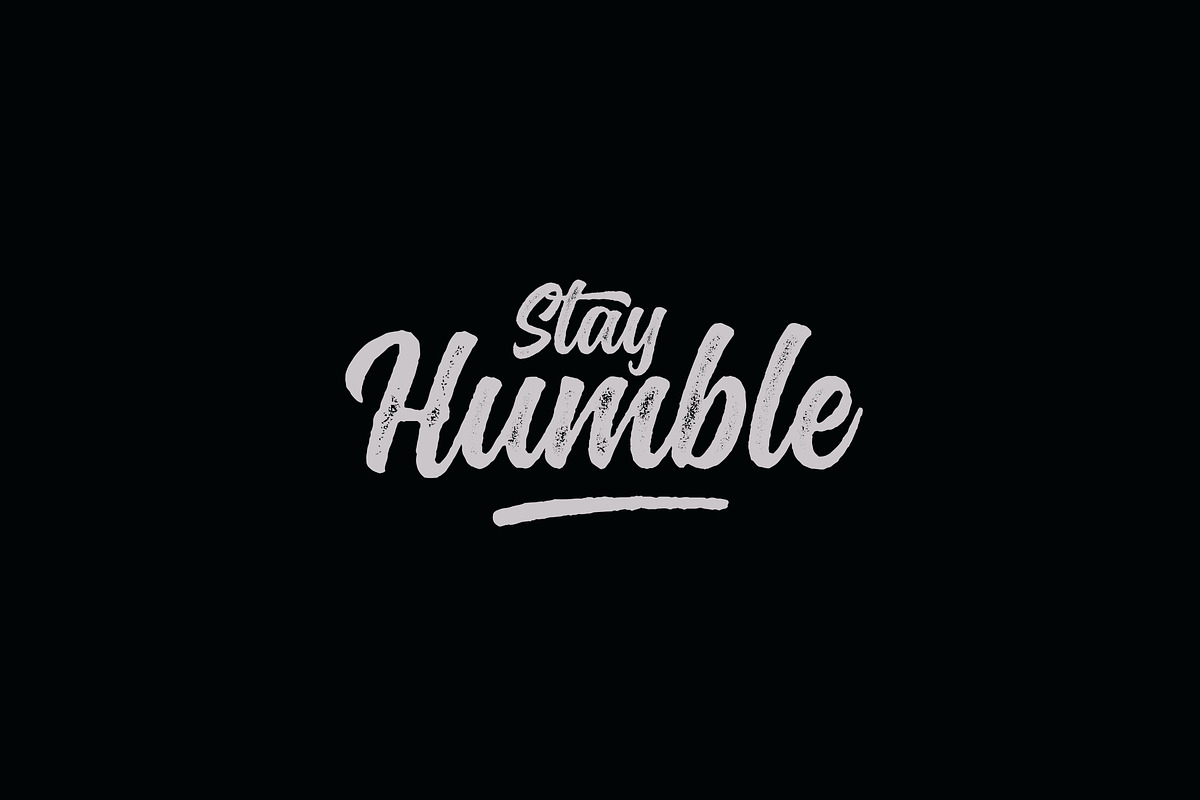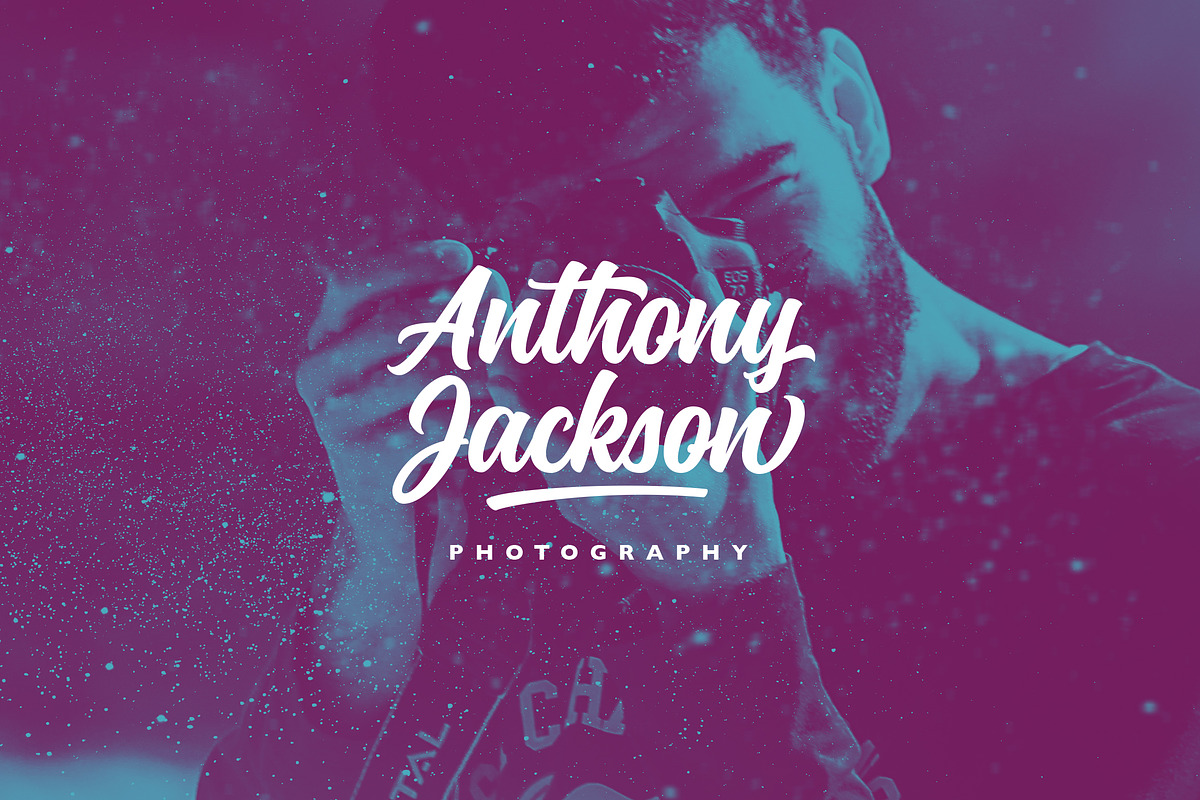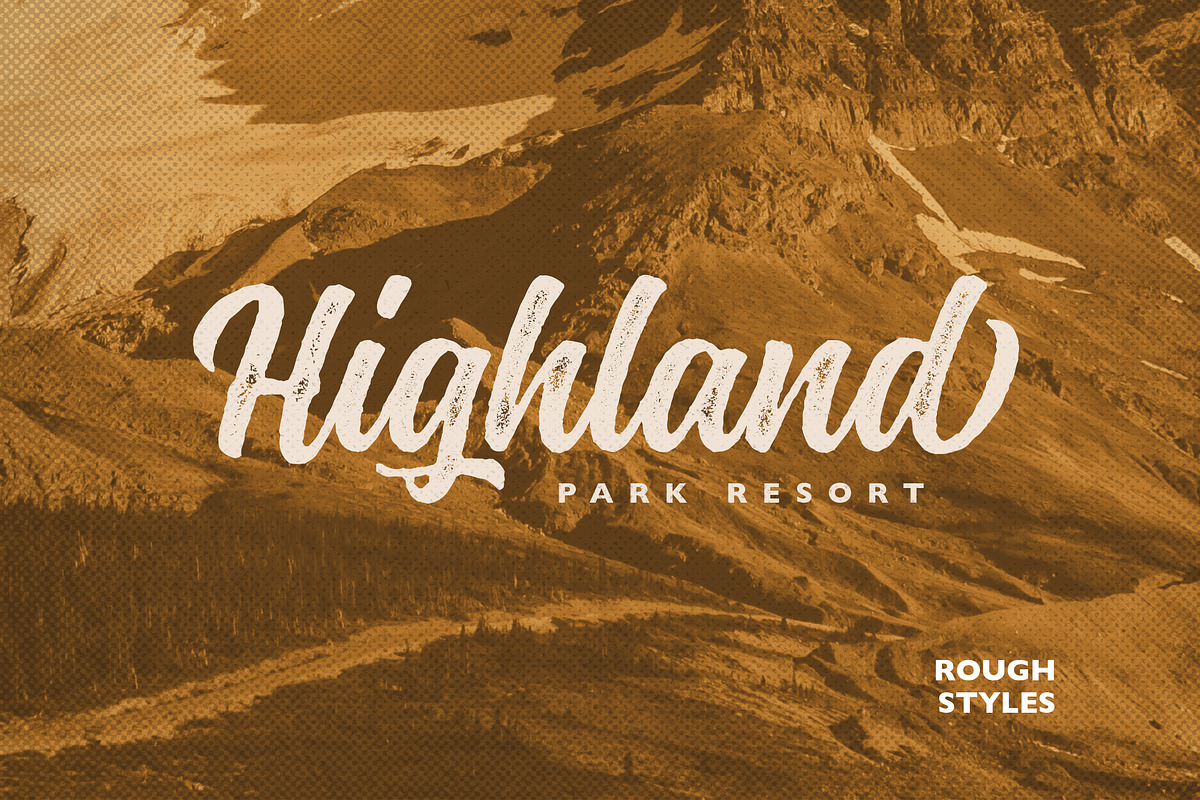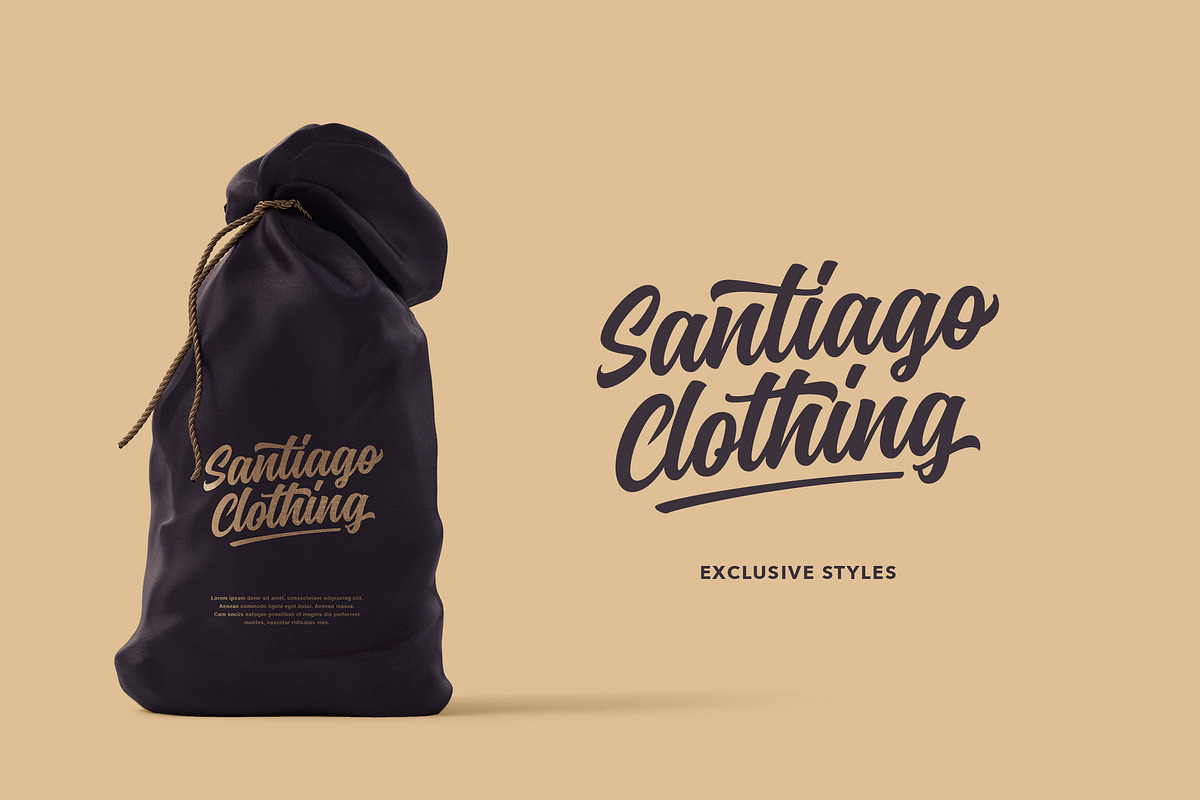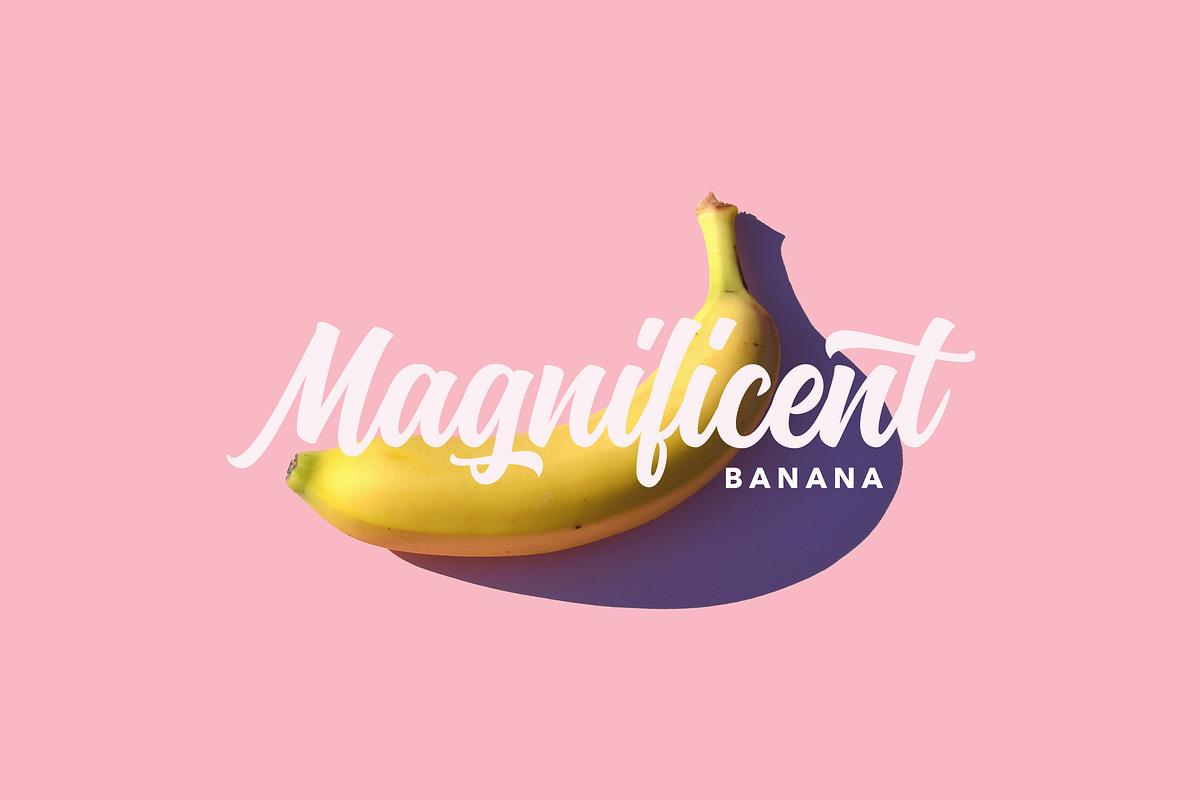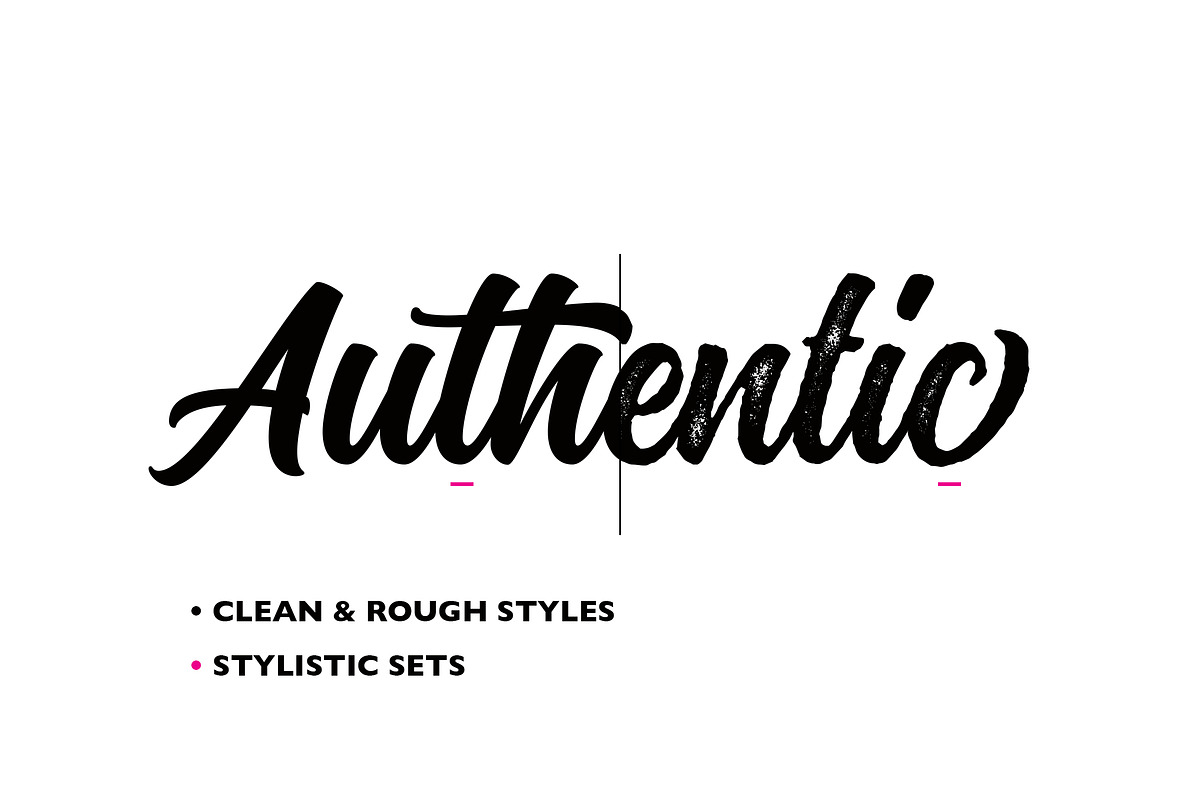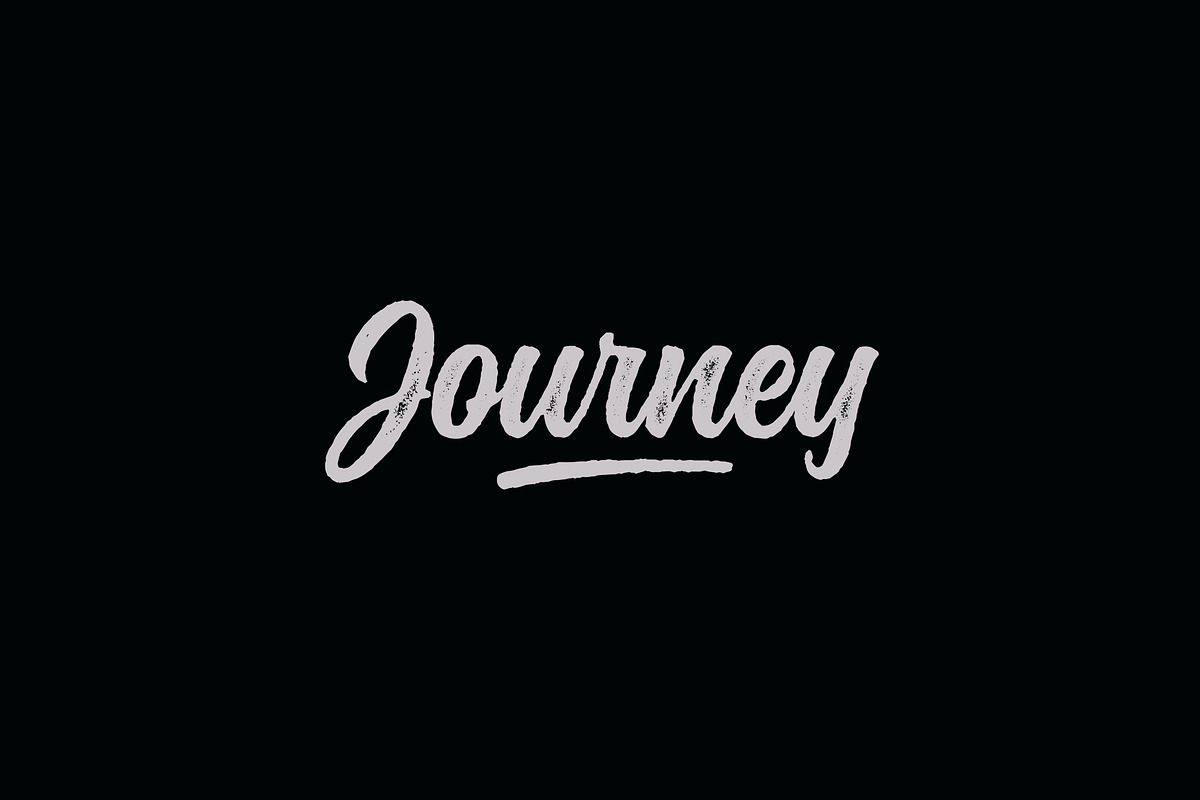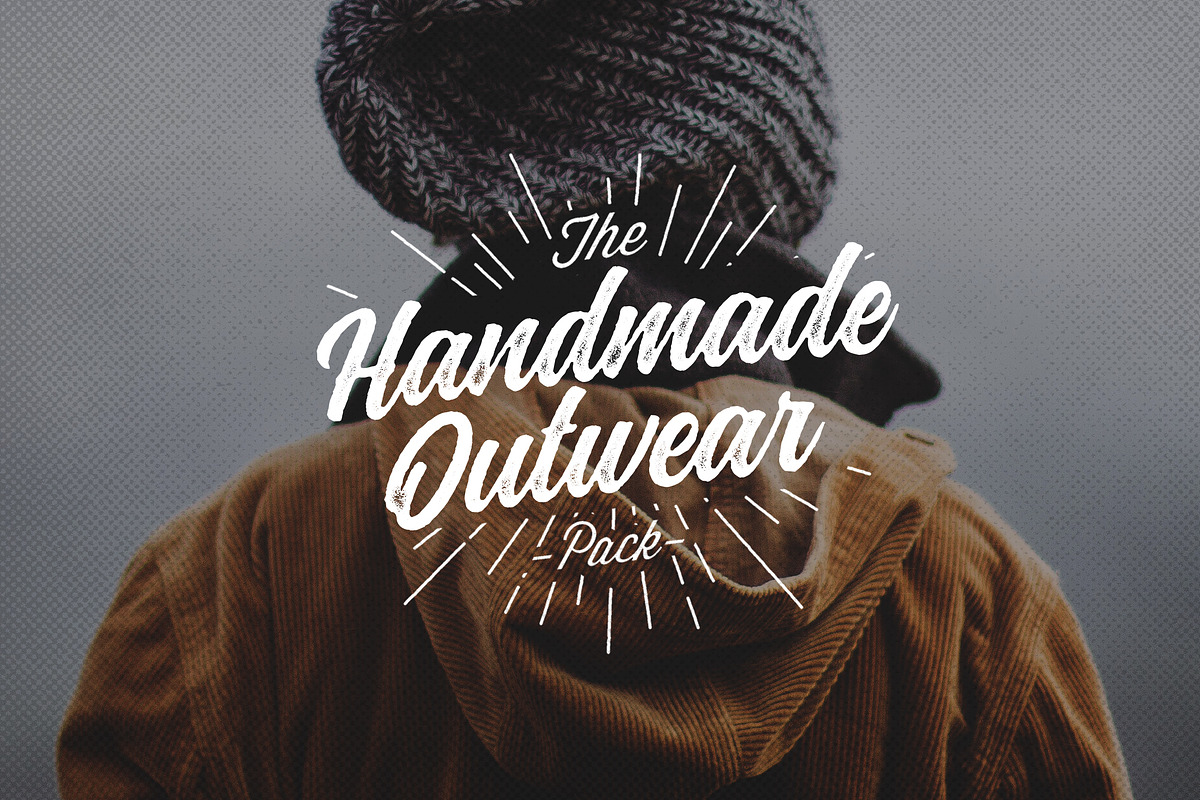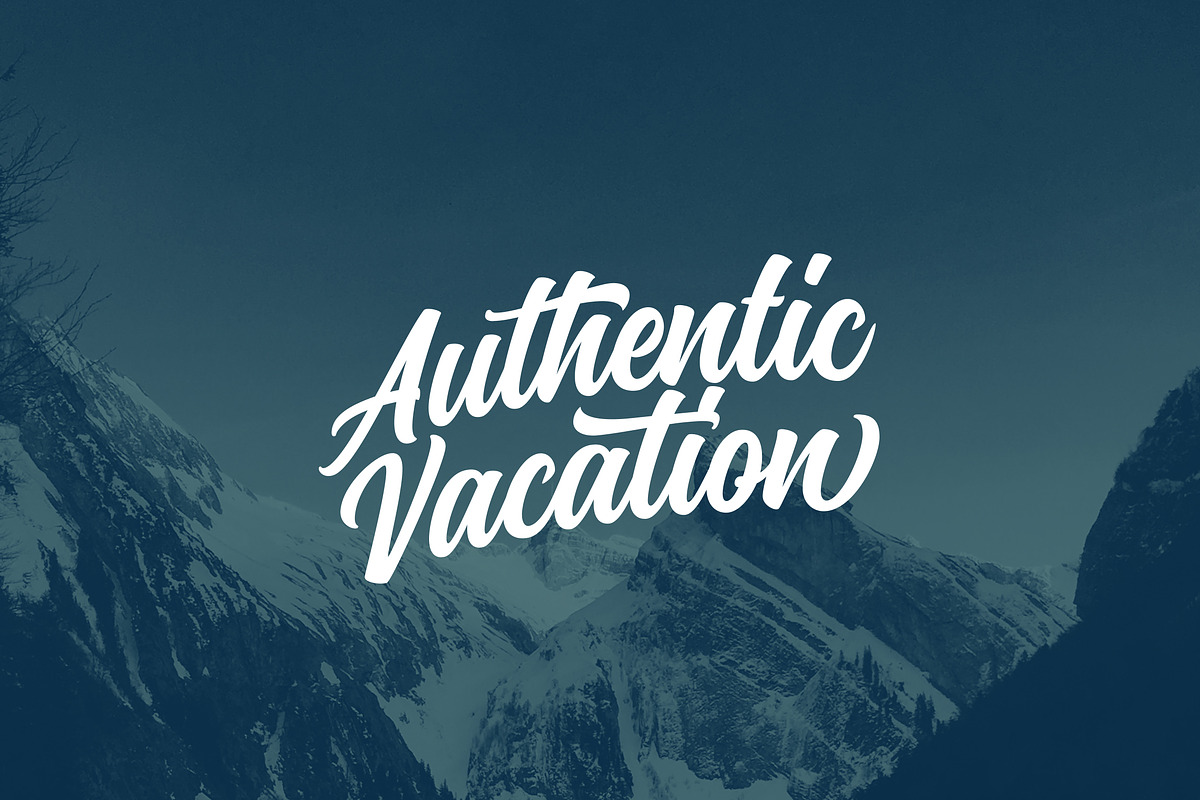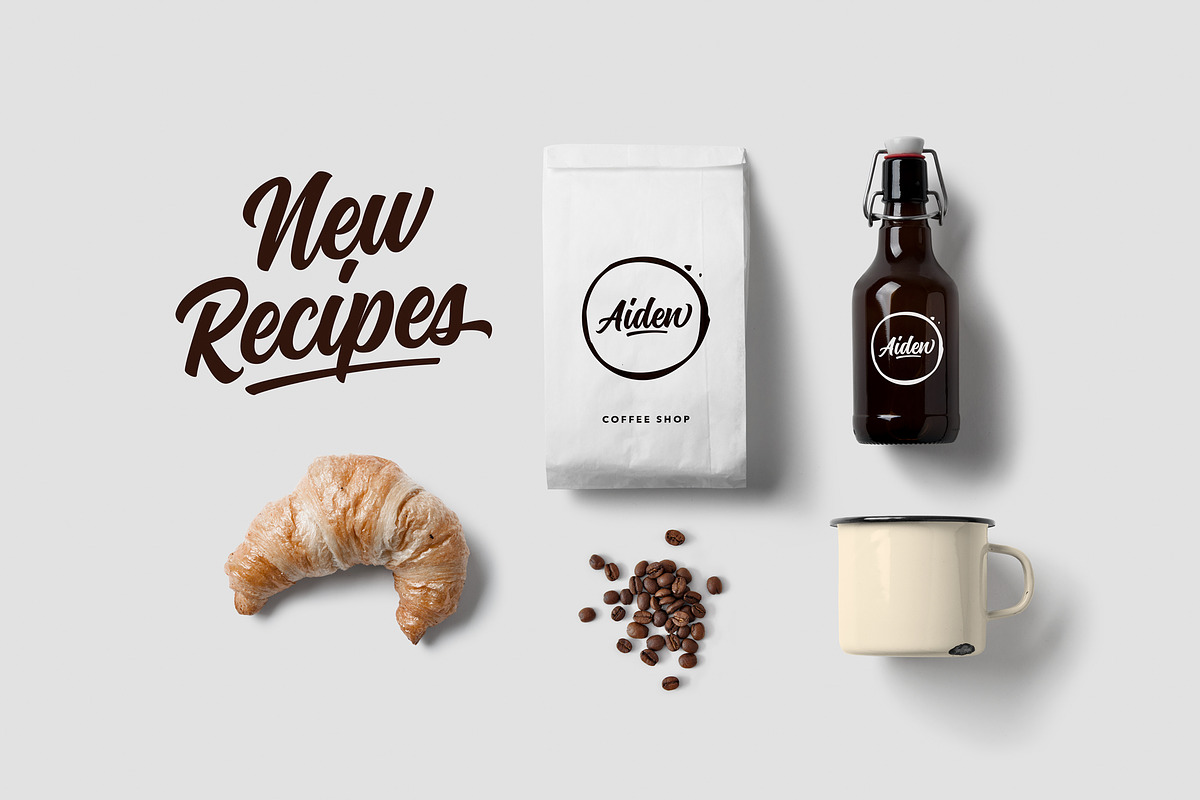
Montana Typeface
INTRODUCING...! Montana Clean & Rough Style + Smooth version
Designed by Alex Couture
Montana is a brush typeface with personality. You can use it as a logo, badge, insignia, packaging, headline, poster, t-shirt/apparel, greeting card, and wedding invitation. The flowing characters are ideal to make attractive messages. Mix and match Montana with a bunch of alternative characters to fit your project.
The alternative characters in this font were divided into several OpenType features such as Stylistic Alternates, Stylistic Sets, and Ligature. The OpenType features can be accessed by using OpenType programs such as Adobe Illustrator, Adobe Photoshop, and Adobe InDesign.